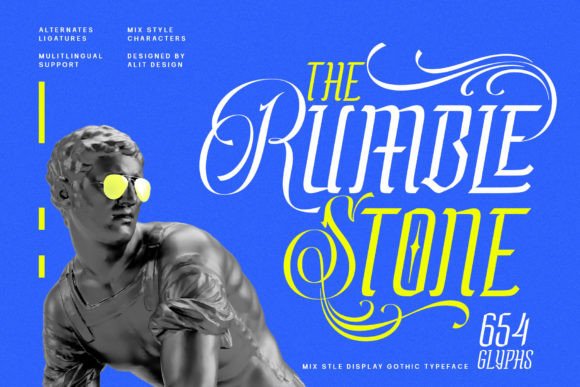
Unveil Rumble Stone Font: A Masterpiece of Intricate Elegance for Your Creative Expressions
In the realm of typography, where letters dance and stories unfold, the Rumble Stone Font emerges as a visionary creation, an artistic masterpiece that captures the essence of boldness and distinction. Alit Design, the visionary behind this typographic gem, has meticulously crafted each letterform, imbuing it with a captivating charm that will leave you spellbound.
As a blackletter font family, Rumble Stone Font possesses an inherent air of mystery and intrigue, evoking the ancient art of scribes and the timeless allure of medieval manuscripts. Its thick, imposing strokes exude strength and determination, while the intricate details within each glyph hint at a hidden narrative, waiting to be deciphered.
Unleash Your Creativity with Rumble Stone: The Perfect Font for Tattoo Designs and Clothing
If you seek a font that embodies the spirit of rebellion and individuality, look no further than Rumble Stone. Its striking appearance makes it the ideal choice for tattoo designs, where every stroke tells a story and every letter carries a profound meaning. Whether you're an experienced tattoo artist or an aspiring one, Rumble Stone will elevate your designs to new heights, leaving an indelible mark on the skin.
Beyond the world of tattoos, Rumble Stone Font also shines as a captivating choice for clothing designs. Its bold and edgy aesthetic lends itself perfectly to t-shirts, hoodies, and other apparel, creating statements that speak volumes. Imagine your designs adorned with Rumble Stone's unique lettering, turning heads and sparking conversations wherever you go.
Make a Statement with Rumble Stone: Stand Out from the Crowd with Unforgettable Designs
In a world saturated with mediocrity, Rumble Stone Font empowers you to stand out from the crowd and make a lasting impression. Its distinct and memorable appearance ensures that your designs will captivate audiences, leaving them with a lasting memory of your artistic prowess.
Whether you're a seasoned designer or just starting, Rumble Stone Font is the key to unlocking your creative potential. Its versatility and adaptability make it the perfect companion for a wide range of projects, from personal creations to professional endeavors.